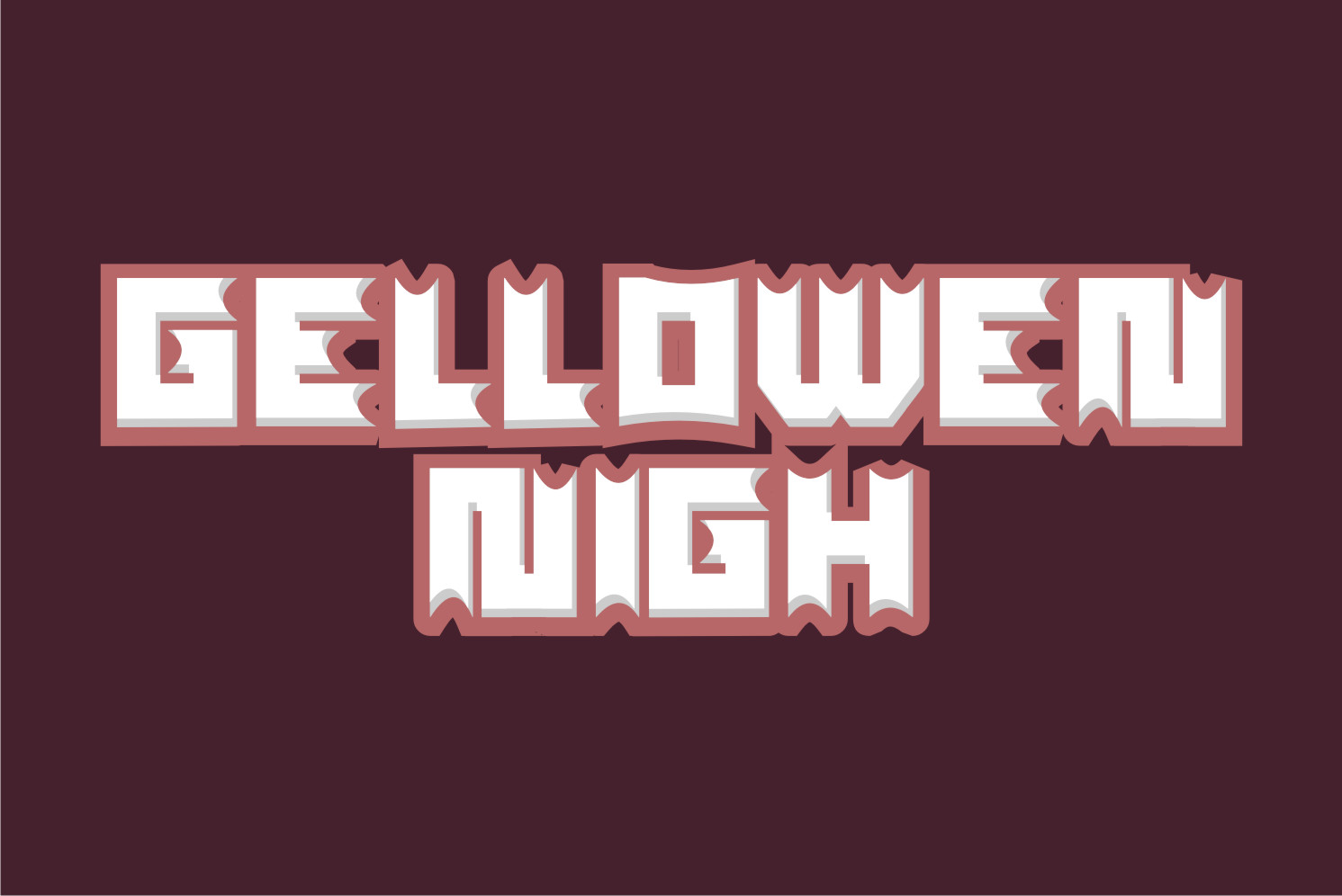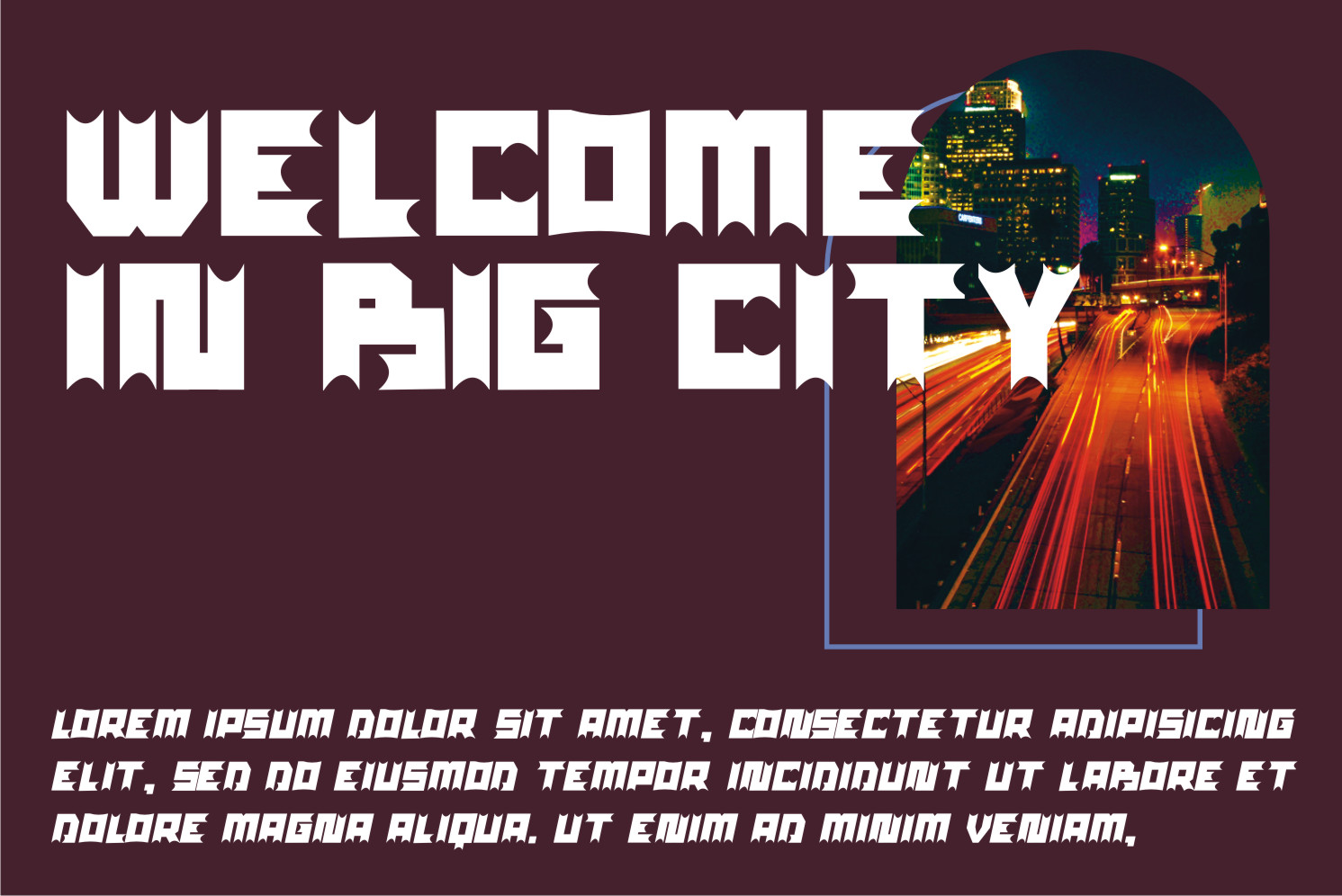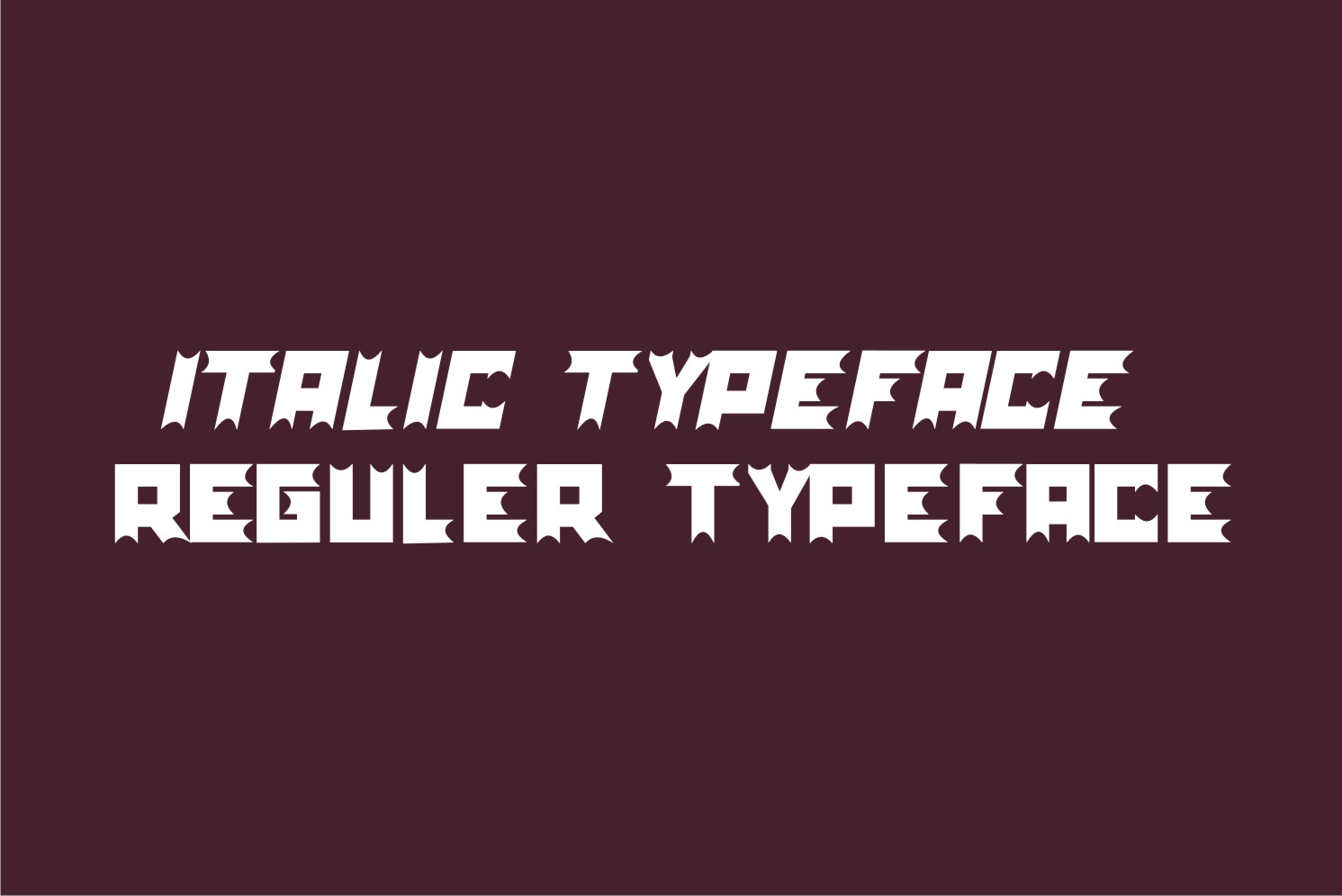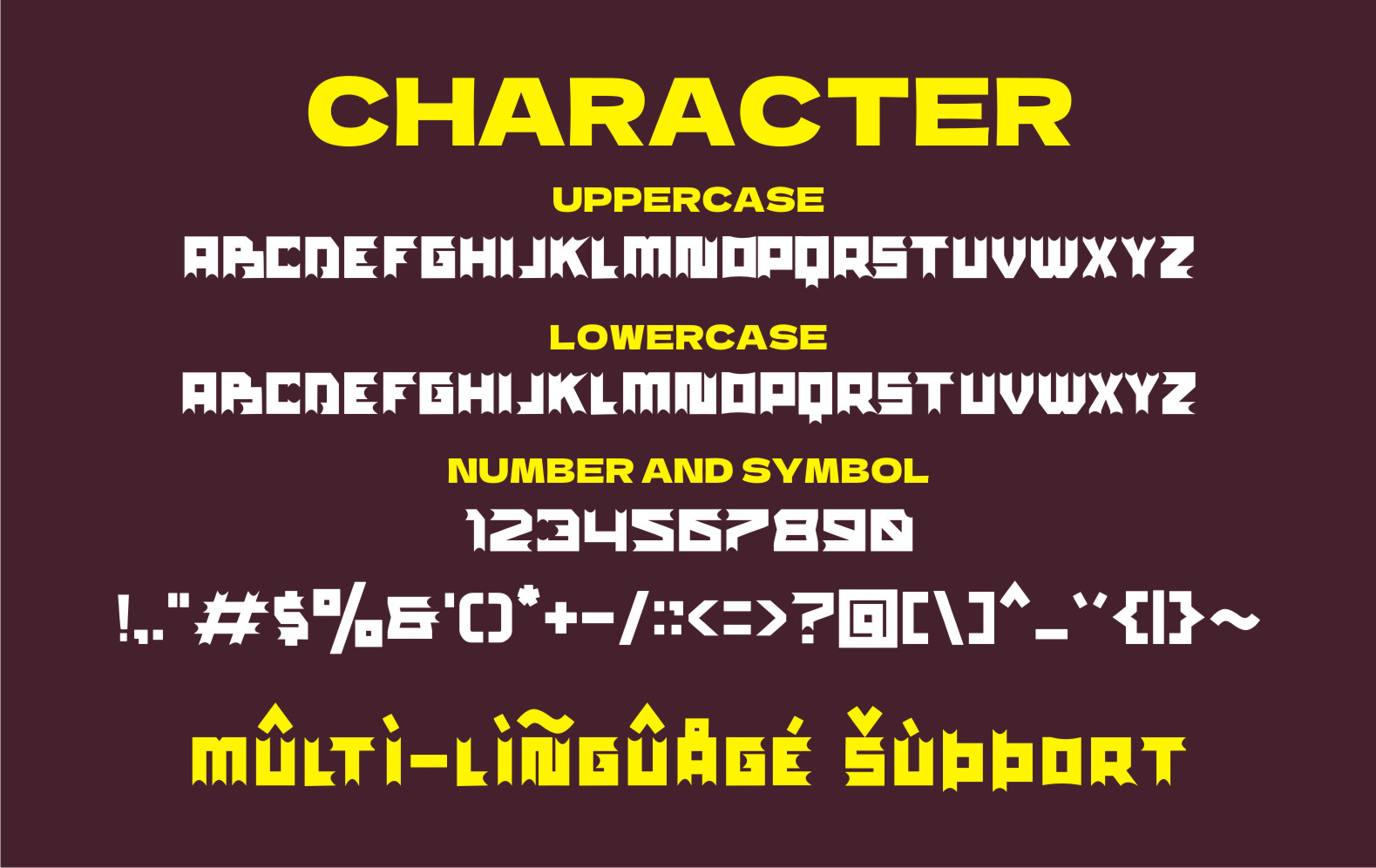
Mansan Font
Mansan Display Font
It’s an imposing, graffiti-styled display font that has a street art vibe. This font is suitable for designs such as t-shirts, sportswear, logos, advertisements, clothing, and more.
hayoyuka8